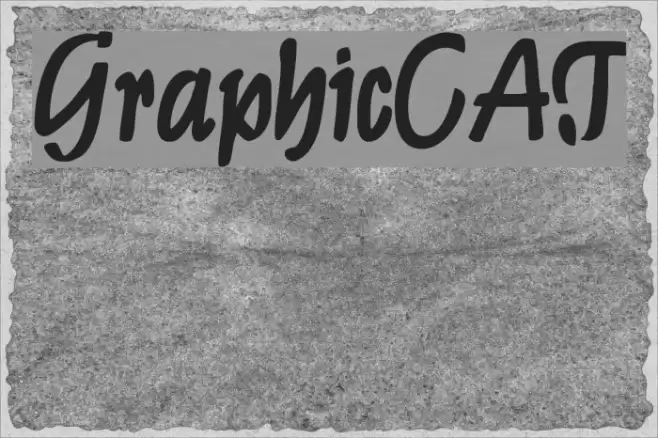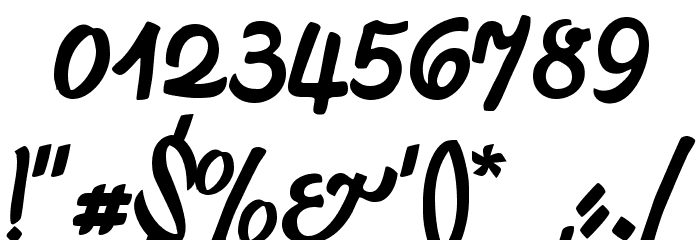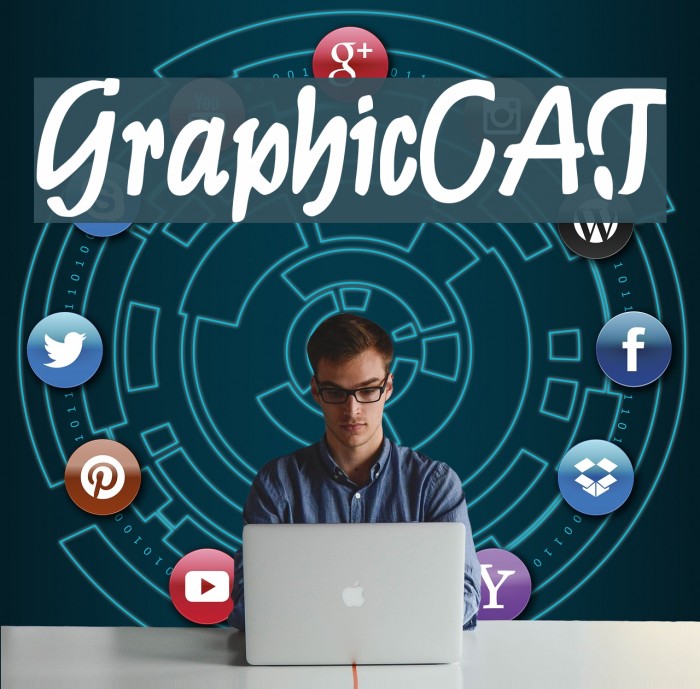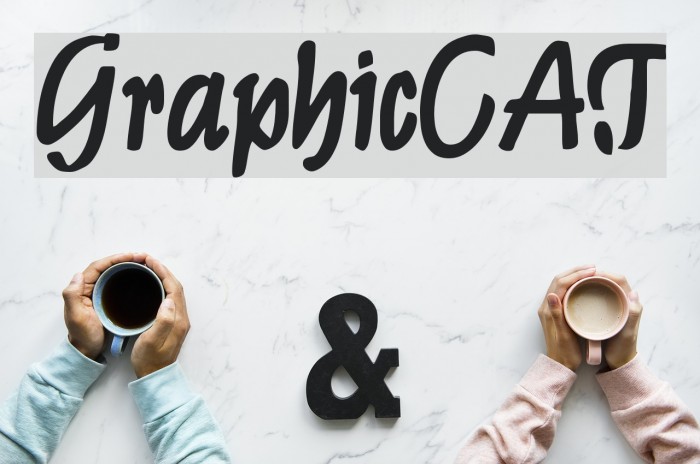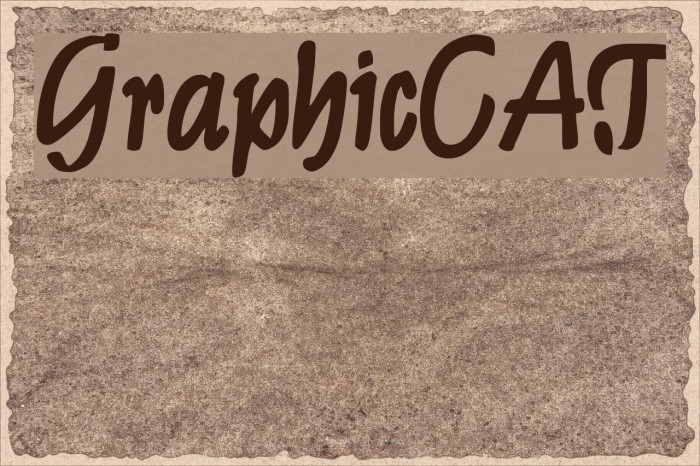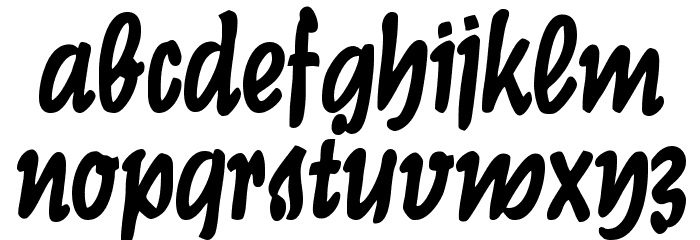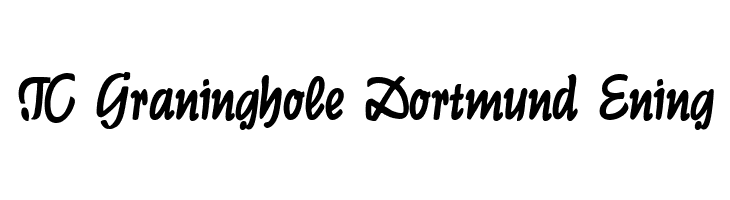
GraphicCAT Font
GraphicCAT Description
This font features a bold and playful script style with a strong presence. The uppercase letters are characterized by their flowing, cursive nature, while the lowercase letters maintain a consistent, rounded form. The numbers are bold and easily readable, complementing the overall style. Special characters are designed with the same playful flair, adding a whimsical touch. The font's thick strokes and rounded edges give it a friendly and approachable appearance, making it suitable for a variety of creative applications.
A bold, playful script font with rounded edges and a whimsical style from Uncategorized fonts.
- Proposed Projects: Ideal for greeting cards, playful branding, children's books, and creative posters.